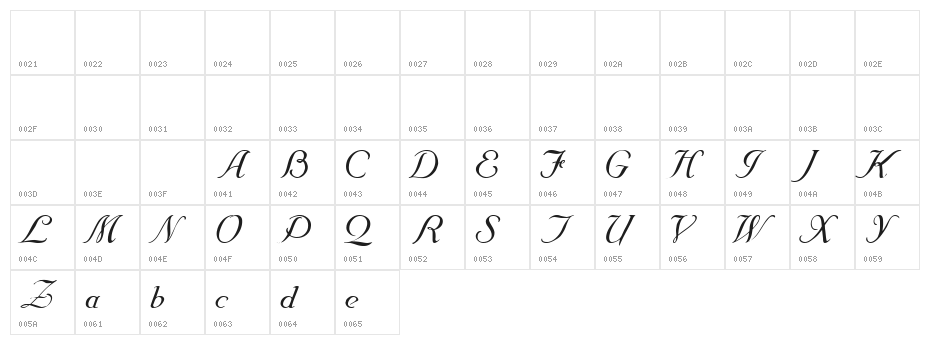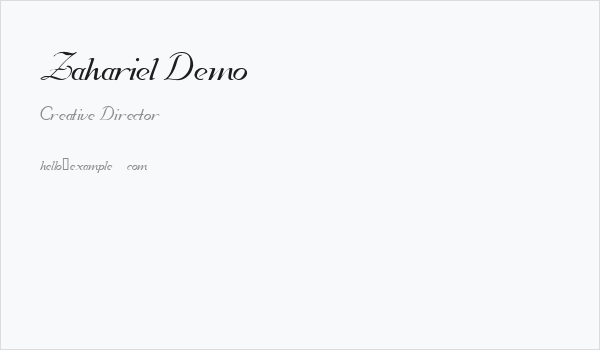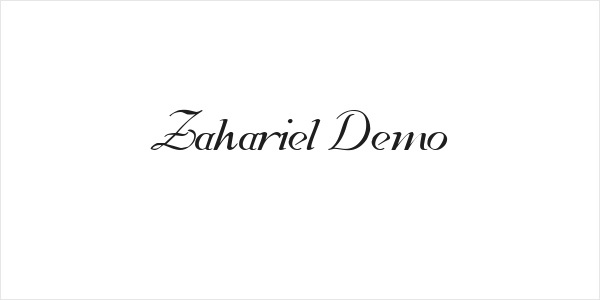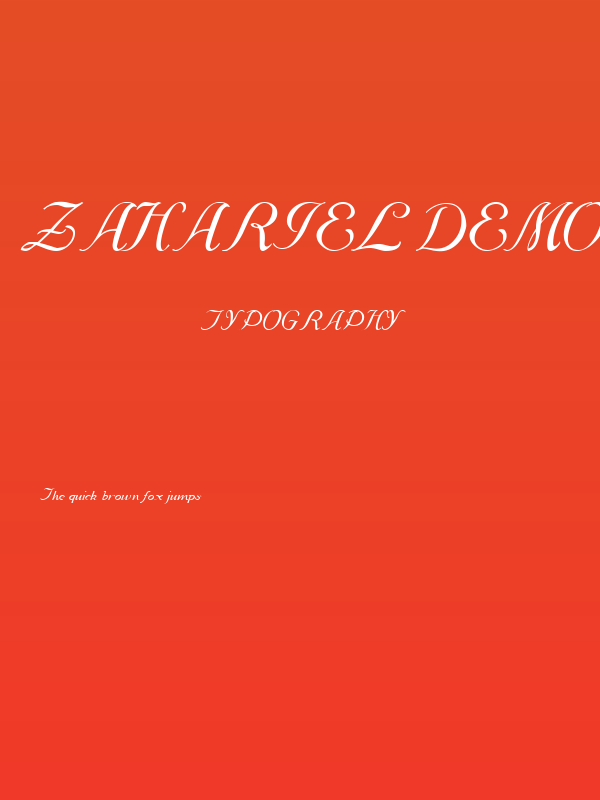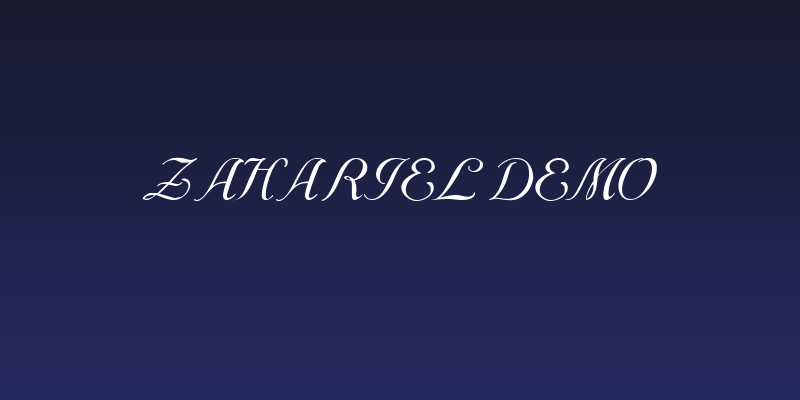
Zahariel Demo Font
Zahariel Demo Description
This elegant script font features a flowing, cursive style with high contrast between thick and thin strokes. The uppercase letters are particularly ornate, with sweeping curves and flourishes that give a sense of movement and grace. The lowercase letters maintain a consistent style, with smooth connections between characters, enhancing readability while retaining a decorative flair. The font's overall appearance is sophisticated and stylish, making it suitable for formal and creative applications. Its unique character shapes and artistic design make it stand out, adding a touch of elegance to any project.
| Overall Style | Elegant, Decorative |
| Use Case | Logos, Invitations, Decorative Text |
| Proposed Projects | Ideal for wedding invitations, luxury branding, elegant packaging, and artistic posters. |